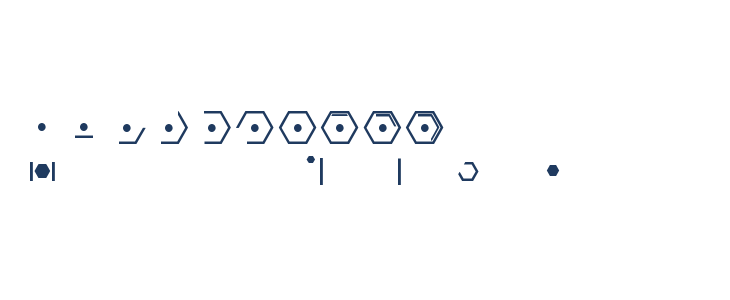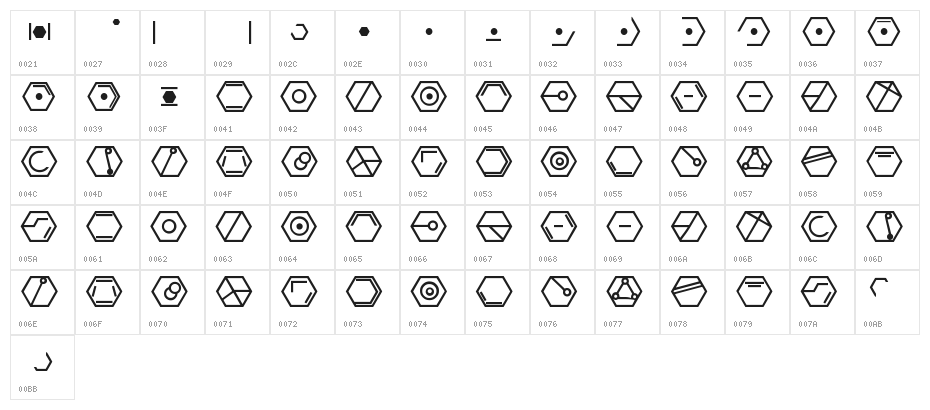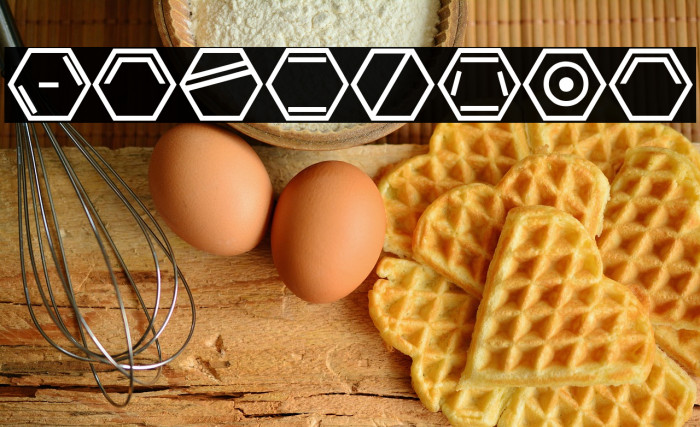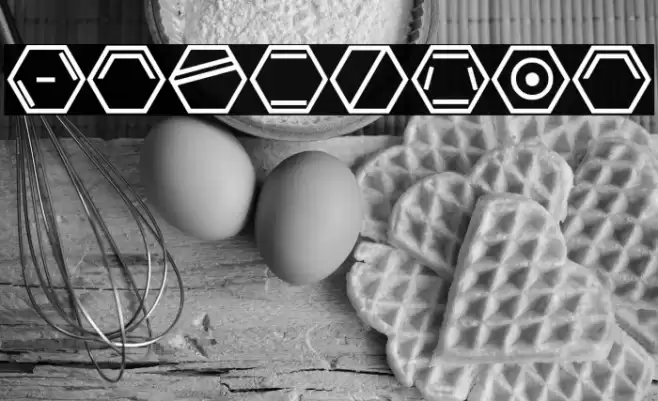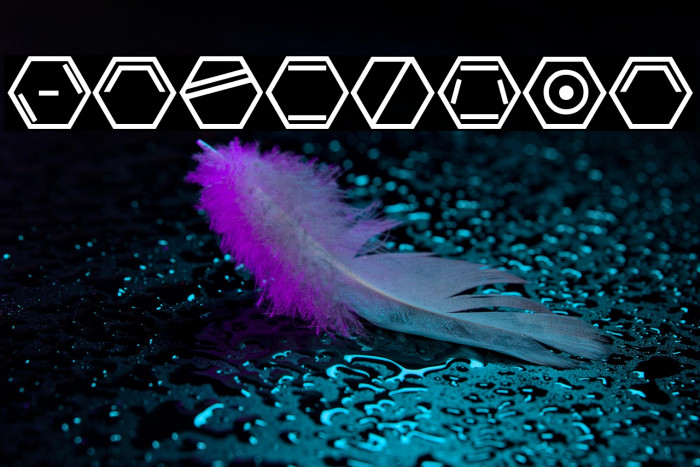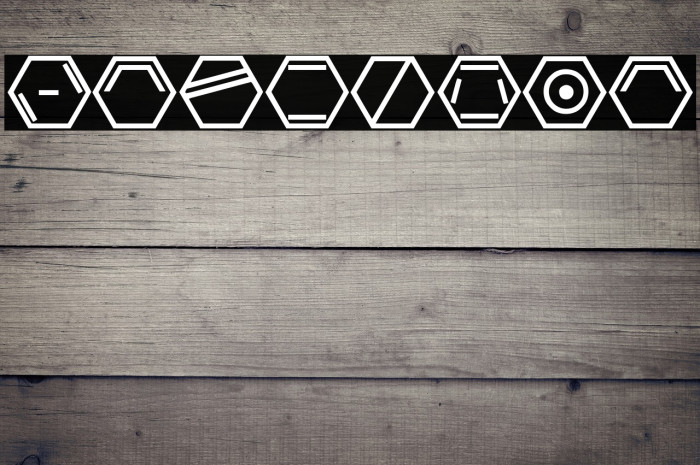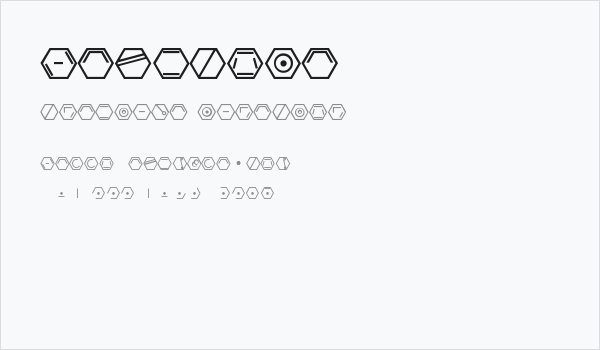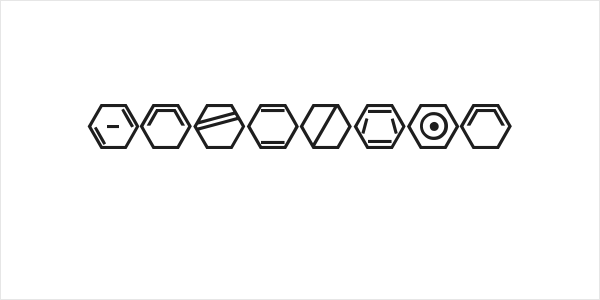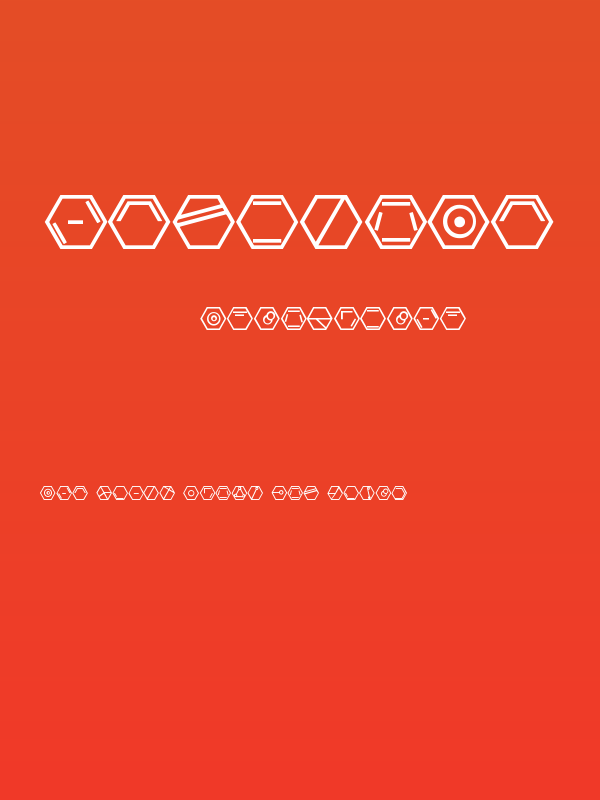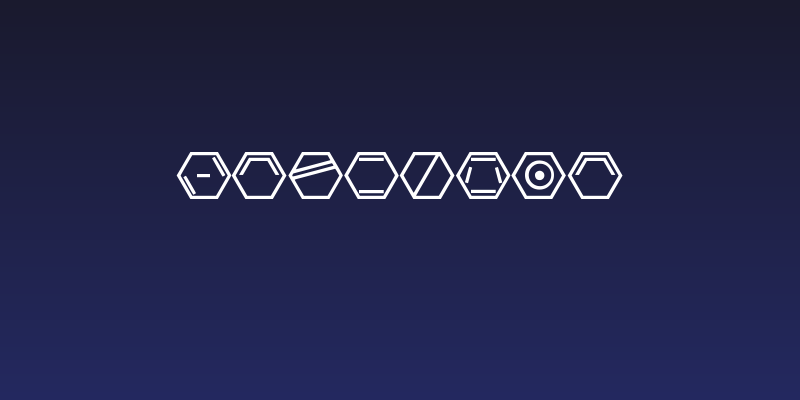
Hexacode Font
Hexacode Description
This font features a unique and modern design, utilizing hexagonal shapes to form each character. The geometric style is consistent throughout, with each letter and symbol enclosed within a hexagon. The lines are clean and precise, offering a futuristic and tech-inspired aesthetic. The characters are distinct yet maintain a cohesive look, making it suitable for creative and innovative projects. The font's design is both decorative and functional, providing a visually striking appearance that stands out.
| Proposed Projects | Ideal for tech branding, sci-fi themed projects, modern art installations, and digital media. |